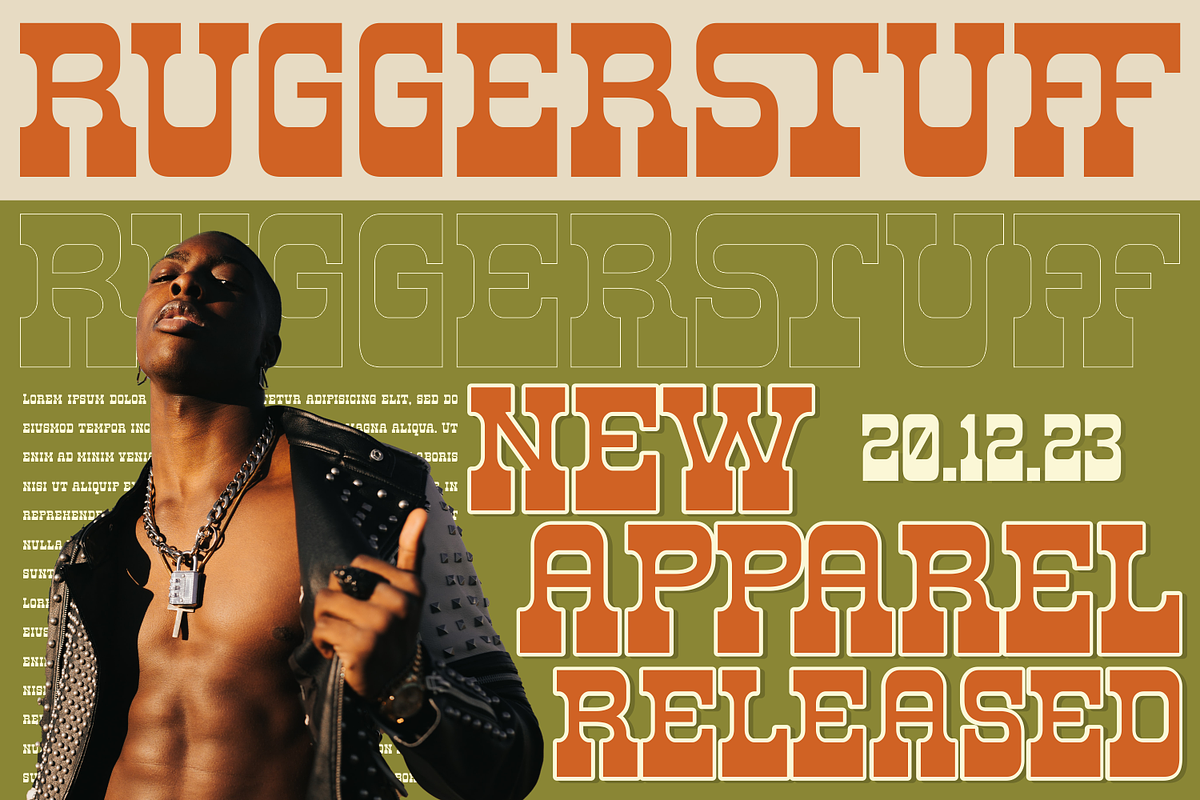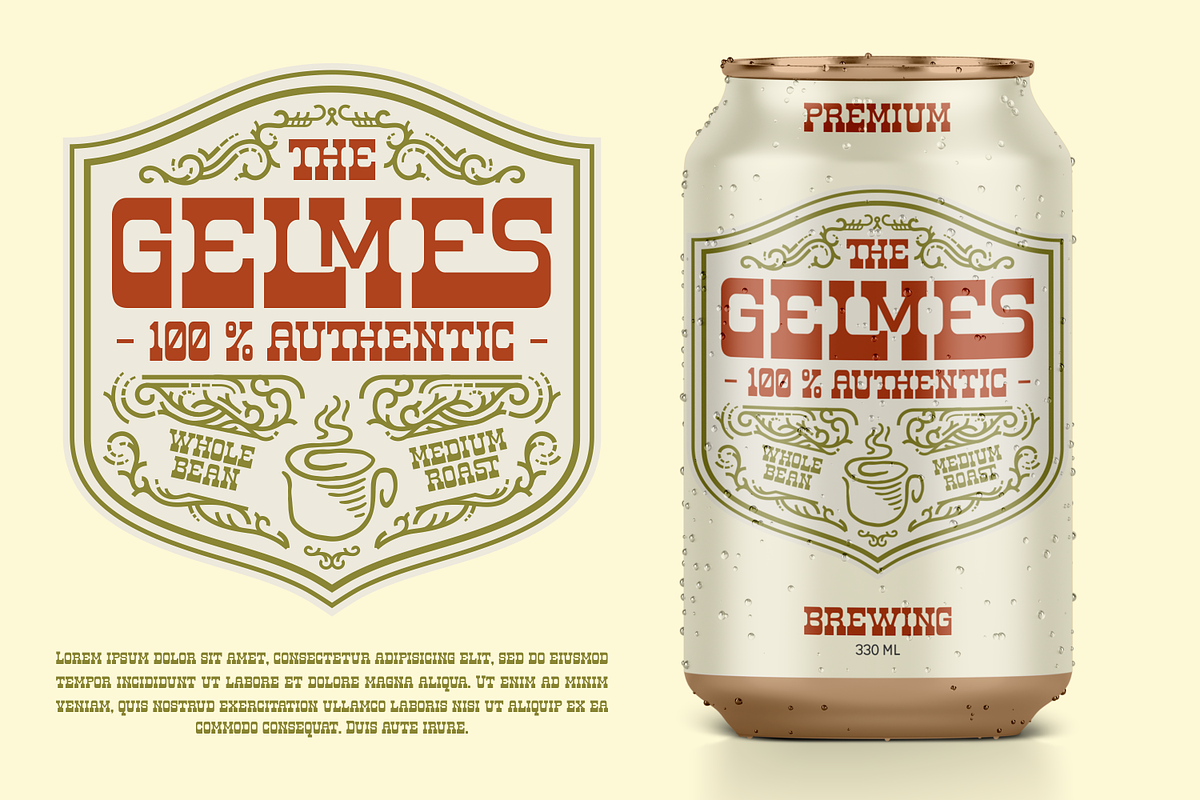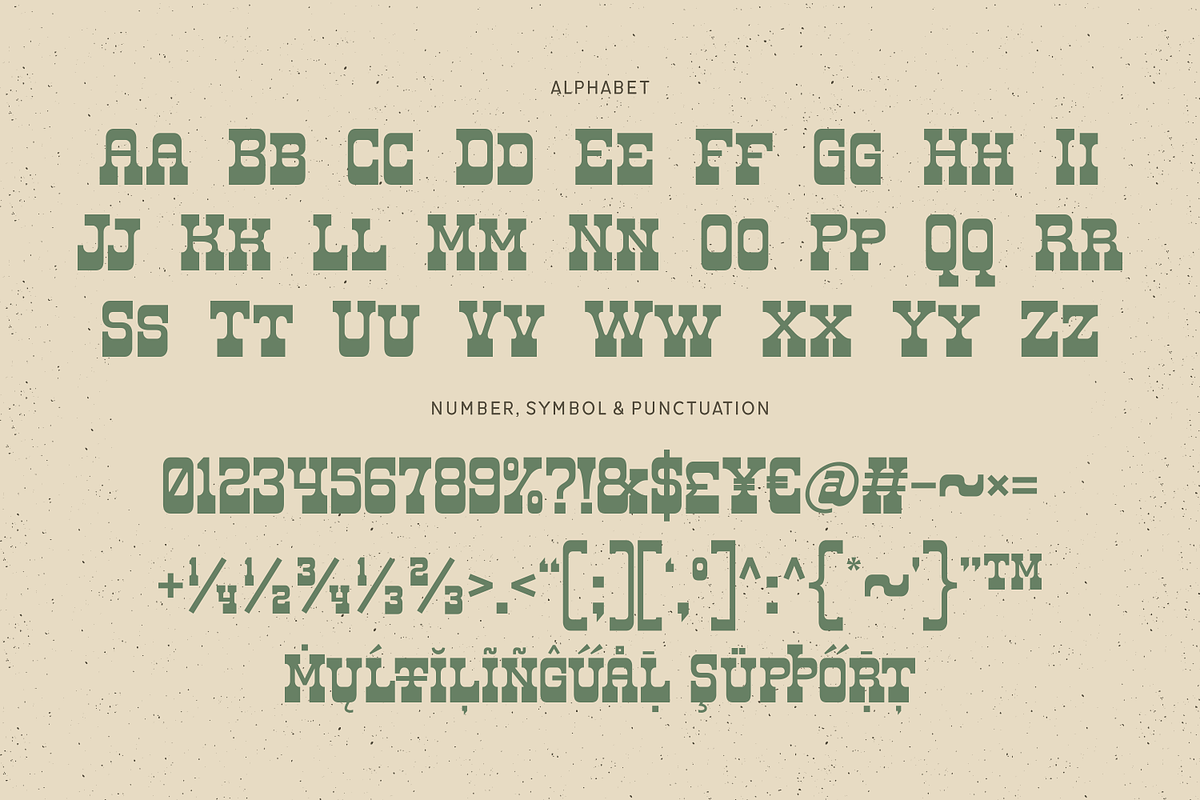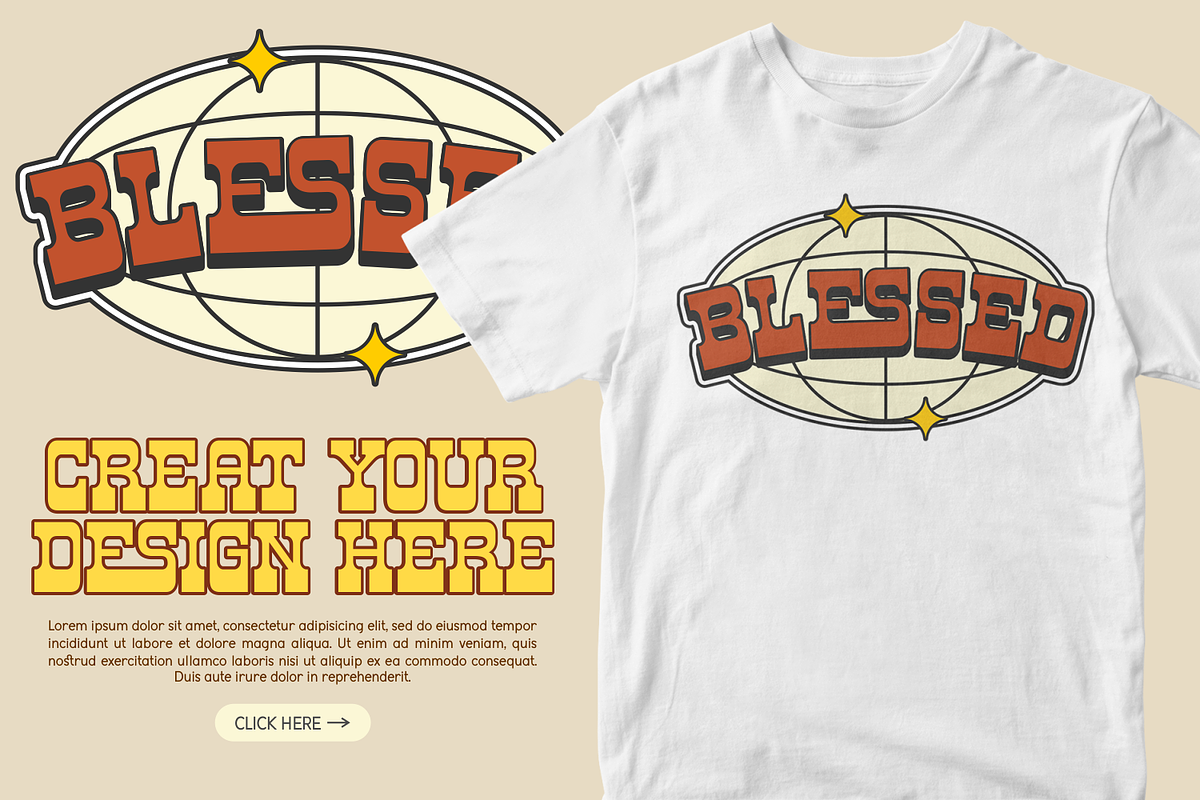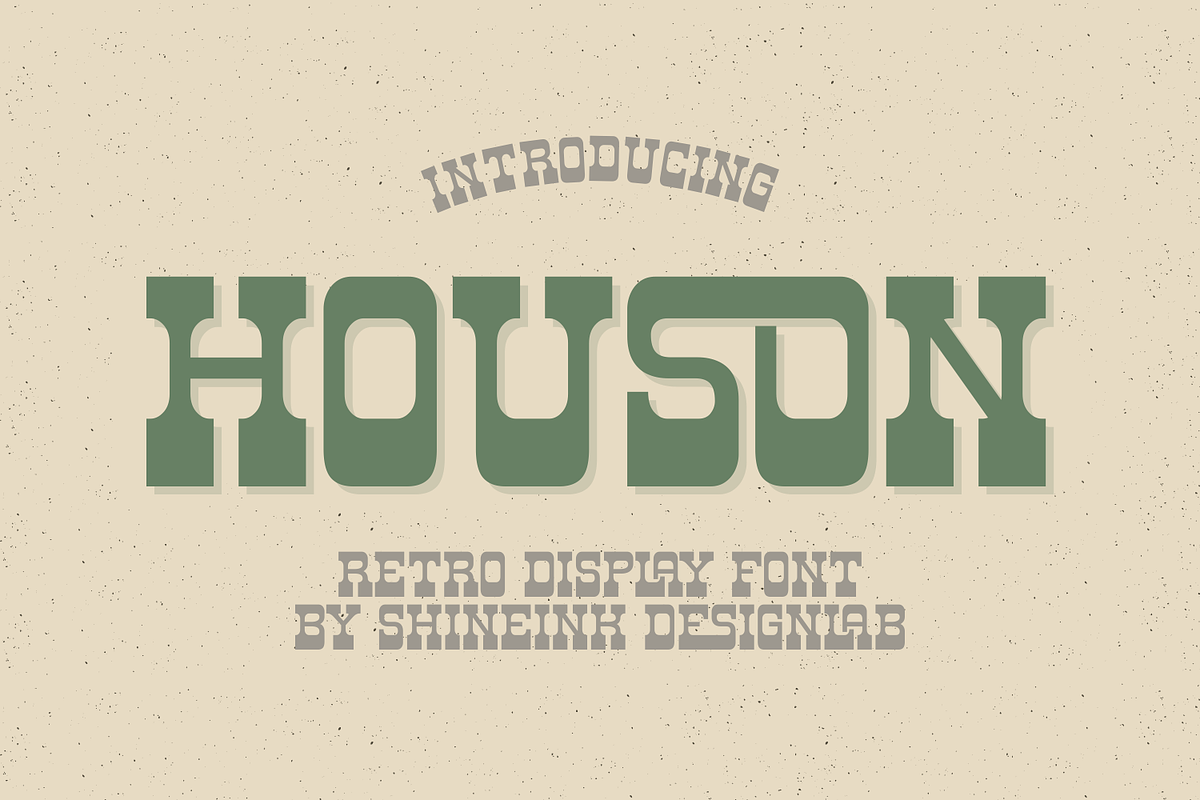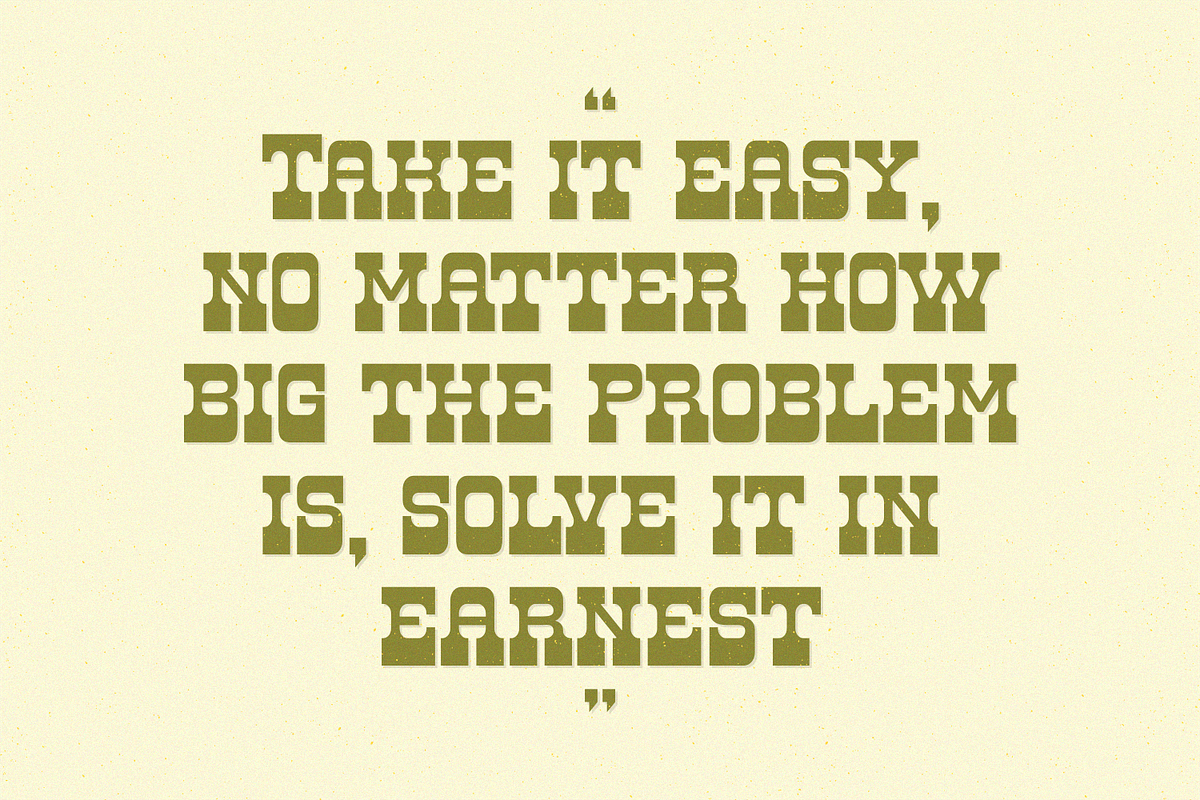
Houson
I'm present to you, new retro typeface, called Houson!
Houson is a retro and western-looking display font. This bold, unique, and vintage font can easily become your favorite. It can be used for books, magazine covers, social media posts, invitations, and so much more! So add this to your creations and take your designs to the next level! This font is PUA encoded which means you can access all the glyphs and ligatures with ease!
- Lowercase and Uppercase
- Extra Ligature
- Multiple Languages Supported